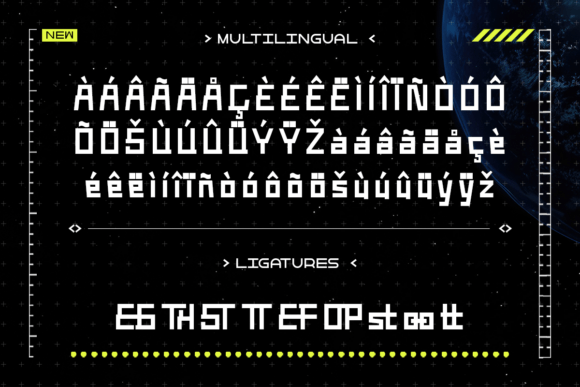
Unlocking the Future of Design with Eboxa Font
Have you ever found yourself staring at a blank screen, waiting for the perfect font to spark your creativity? It’s a moment we’ve all been there – the blank canvas, the endless options, and the pressure to create something truly unique. But what if I told you there’s a font that can transport you to a futuristic world, where sleek lines and sharp edges come together to create a bold, high-tech aesthetic?
Meet Eboxa Font, a cutting-edge typeface designed to inspire tech-inspired designs, sci-fi projects, and gaming logos. With its clean lines and multilingual support, this font is a valuable asset for designers looking to elevate their digital branding. Whether you’re a seasoned pro or just starting out, Eboxa Font is the perfect tool to unlock your creative potential and bring your futuristic vision to life.
Eboxa Font Key Features
- Font Family: Eboxa is a modern sans-serif font family designed for digital use, with a range of weights and styles to suit various design needs.
- Character Set: Eboxa Font includes a comprehensive character set, covering Latin, Cyrillic, and Greek alphabets, as well as a range of punctuation and symbol glyphs.
- Unique Characteristics: Eboxa Font features a distinctive geometric shape and a clean, minimalist aesthetic, making it an ideal choice for modern designs that require a touch of sophistication.
Eboxa Font Review
I’ve had the chance to work with Eboxa Font, and I must say it’s a unique and interesting typeface. ✨ One of the things that stands out is its versatility – it can work well in both digital and print media, making it a great choice for designers who need a font that can adapt to different contexts.
Here are some of the things that work well with Eboxa Font:
- ✨ It’s highly legible, even at small font sizes, making it a great choice for body text.
- ✨ The font has a clean and modern aesthetic, which makes it perfect for minimalist designs.
- ✨ It’s available in a wide range of weights and styles, giving designers a lot of flexibility when it comes to customizing their designs.
- ⚠️ The font may not be as suitable for formal or traditional designs, as it has a somewhat modern and edgy feel.
- ⚠️ Some users may find the font to be a bit too minimalist, lacking the elegance and sophistication of more traditional typefaces.
Overall, I think Eboxa Font is a solid choice for designers who are looking for a versatile and modern typeface. While it may not be the best choice for every project, it’s definitely worth considering for designs that require a clean and contemporary aesthetic.
Getting the Most Out of Eboxa Font
For optimal results, use Eboxa Font in conjunction with other design elements that complement its modern and sleek aesthetic.
Experiment with different font sizes, colors, and styles to create a unique visual identity.
Eboxa Font is suitable for:
- Business and corporate branding.
- Modern website and app design.
- Editorial and publishing materials.
Alternatives to Eboxa Font
Eboxa Font is a sans-serif font known for its clean and modern look. However, designers may be looking for alternatives that offer similar characteristics or unique features. Here are a few options to consider:
Montserrat is a geometric sans-serif font designed by Julieta Ulanovsky. It’s known for its clean lines and urban feel, making it perfect for designs that require a modern and edgy look. Montserrat is a great alternative to Eboxa Font for designers who want a font with a similar feel but with a more geometric structure.
Open Sans is a modern sans-serif font designed by Steve Matteson. It’s highly legible and versatile, making it suitable for a wide range of designs, from digital products to print materials. Open Sans is a great alternative to Eboxa Font for designers who want a font that’s easy to read and works well in various contexts.